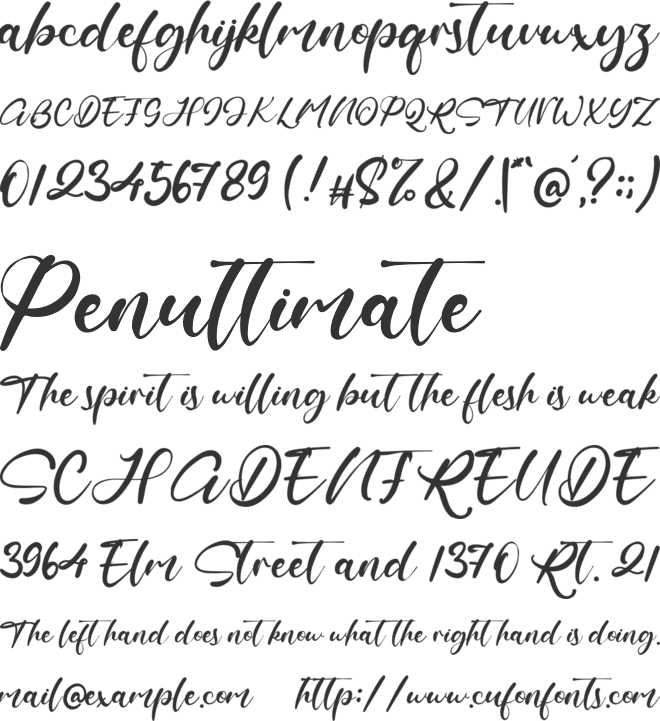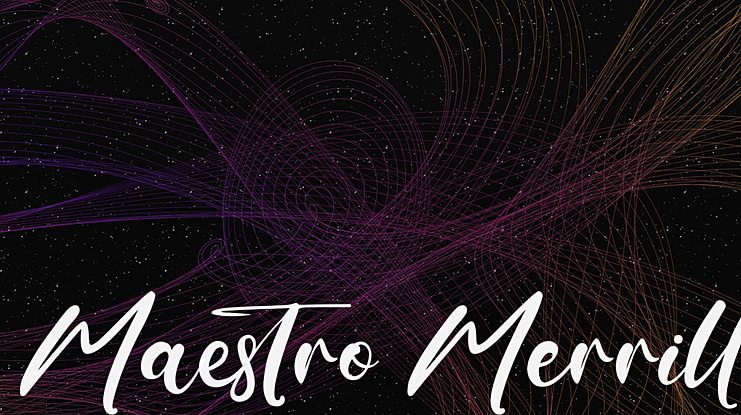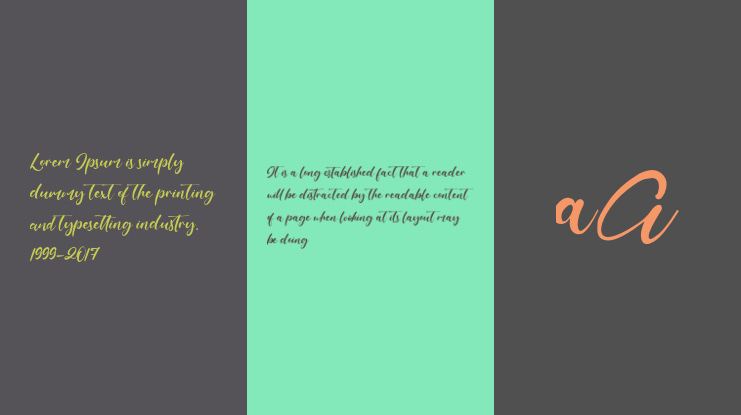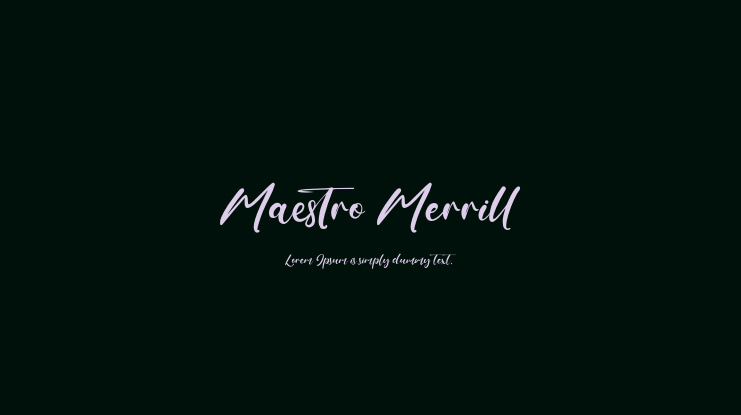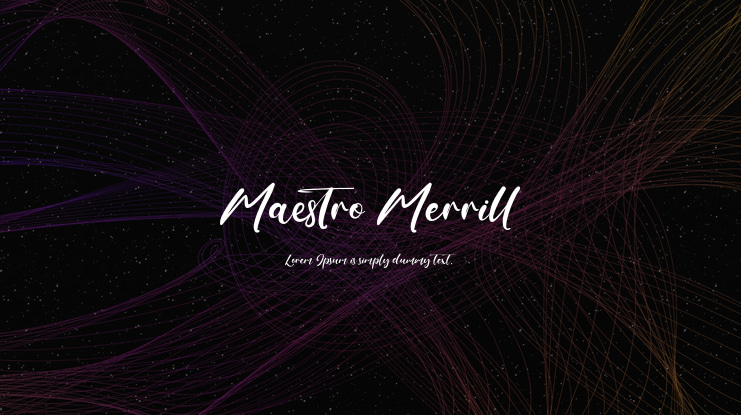
Maestro Merrill Font
Introducing our New Font, very suitable as to make adorable invitation for wedding, birthday, special day. A collection of letters and numbers suitable your projects also great for Logotype, Branding Design, Logo Design, Digital Lettering Arts, T-Shirt/Apparel, Poster, Magazine, Signs, Advertising Design, and also perfect for your other projects branding.Click our website :https://fontkong.com/product/maestro-merrill/